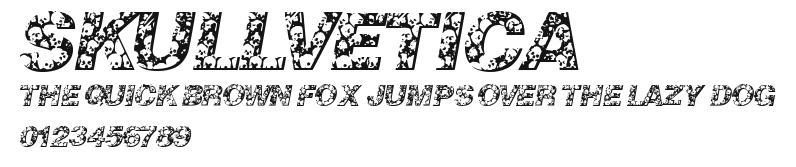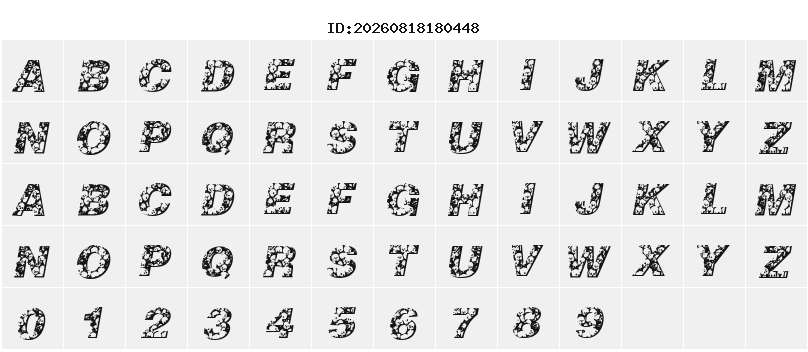
Skullvetica Preview
• Font Name: Skullvetica
• Font ID: Skullvetica:Version 1.00
• Full Font Name: Skullvetica
• Version: Version 1.00 April 14, 2012, initial release
• PostScript Name: Skullvetica
• Character Count: 63
• Designer: max infeld
• Description: Skullvetica Made at Empire Coffee Chico,CA
About Skullvetica.ttf
Skullvetica.ttf is a modern, elegant sans-serif font designed for ultimate readability and visual harmony. Perfect for branding, headlines, web design, and print materials.